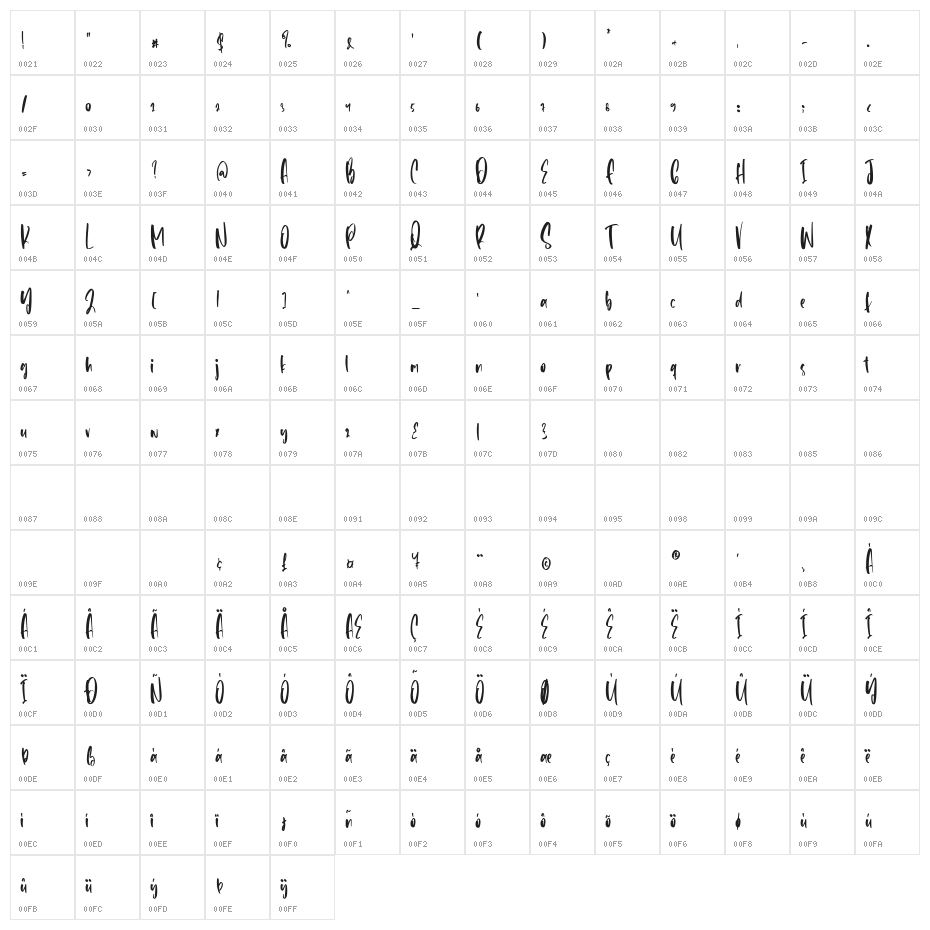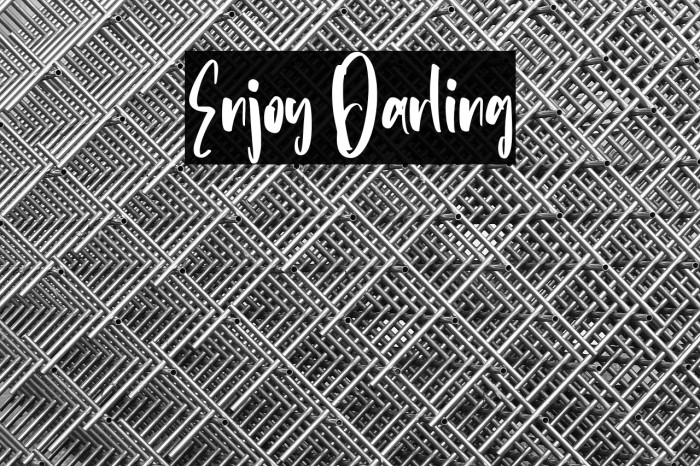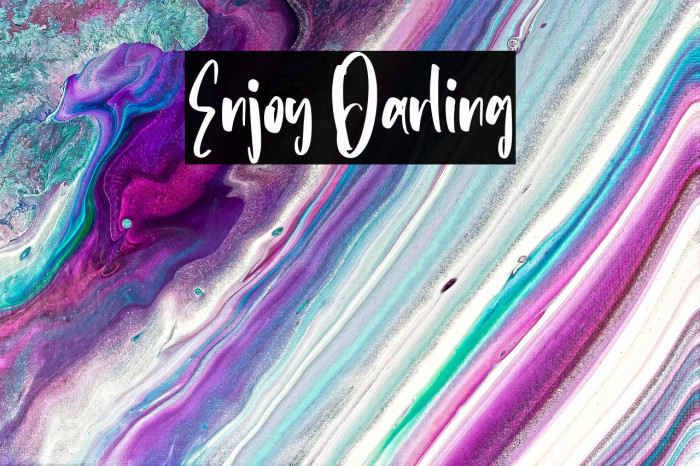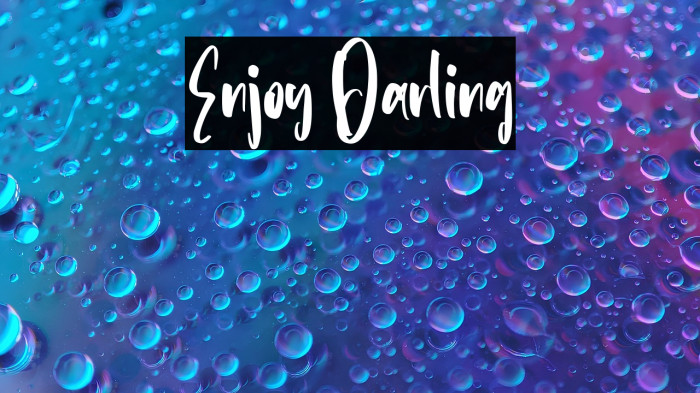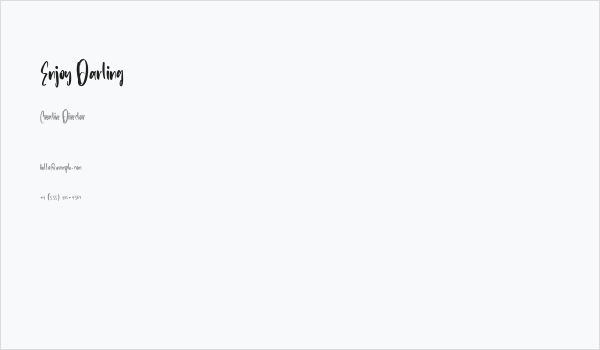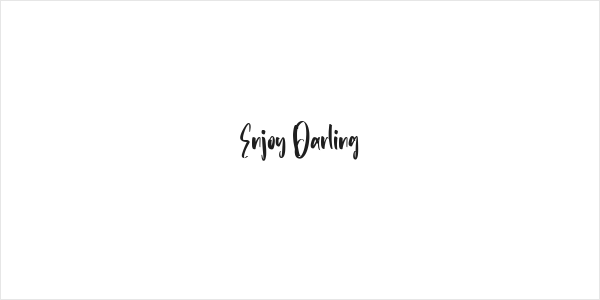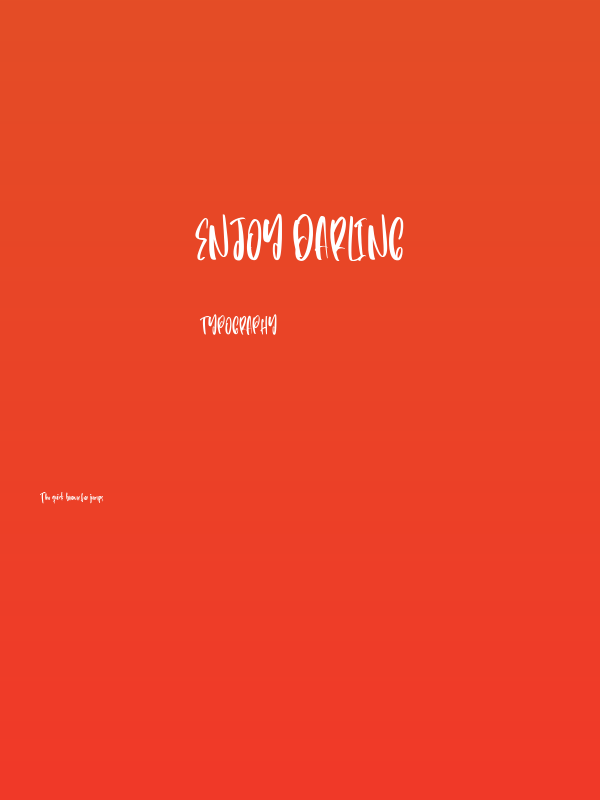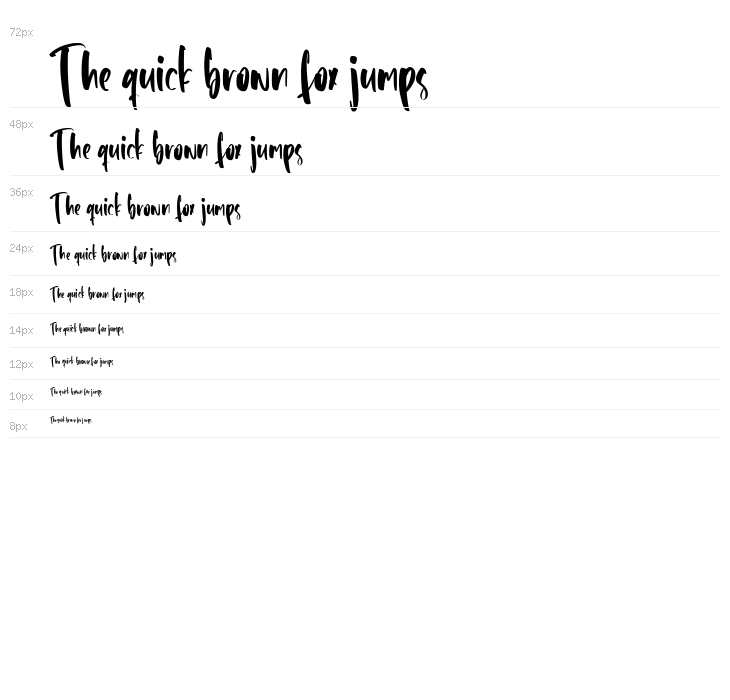
Enjoy Darling Font
Enjoy Darling Description
This font features a playful and expressive handwritten style, characterized by its bold and fluid strokes. The letters exhibit a natural flow with varying thickness, creating a dynamic and lively appearance. The uppercase letters are tall and slightly narrow, while the lowercase letters maintain a consistent rhythm with a touch of whimsy. The numbers and special characters complement the overall style, adding to its versatility. This font exudes a sense of creativity and spontaneity, making it ideal for projects that require a personal and artistic touch.
| Use Case | Logos, Headlines, Creative projects |
| Proposed Projects | Ideal for greeting cards, invitations, branding, social media graphics, and creative projects. |